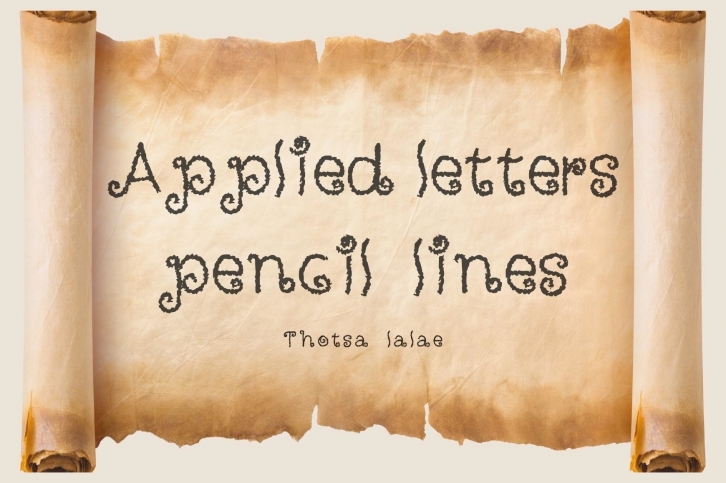
Applied Letters was created with the pencil-drawn-by-hand method. It has a vintage vibe and is resembling characters from antiquity found inscribed on a map or a treasure box. It’s adorable and unique.